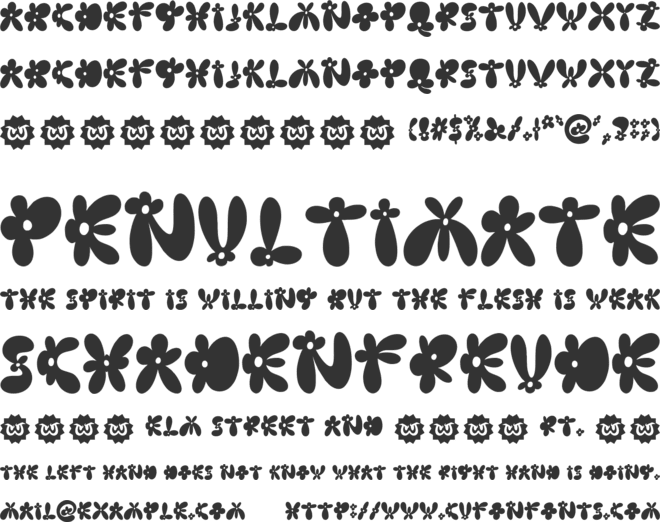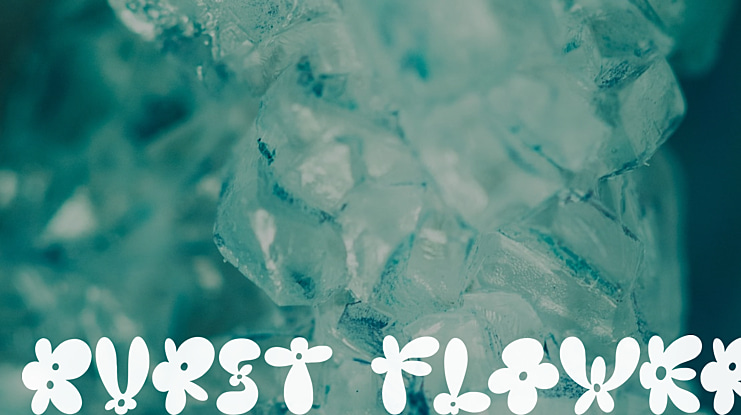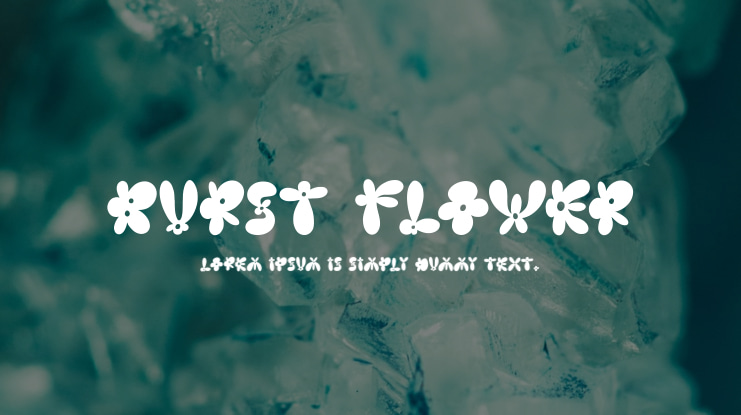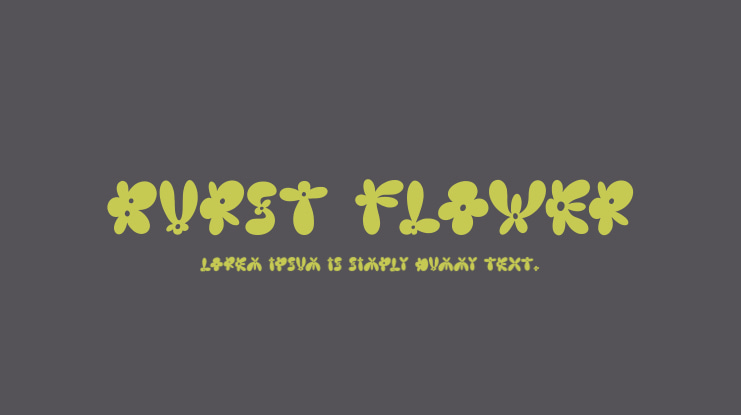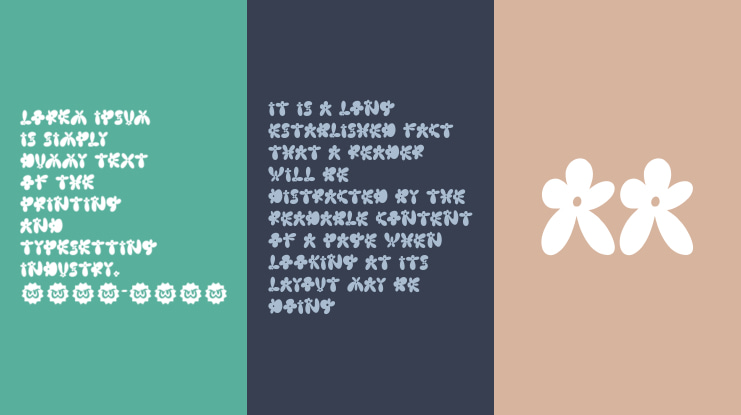
Burst Flower Font
is a unique display font available in three distinct styles: Regular, Outline, and Extrude. Each style possesses its own ability to elevate and enhance your designs, making them eye-catching and unforgettable. This font was meticulously crafted by hand, ensuring a truly artistic and authentic aesthetic.